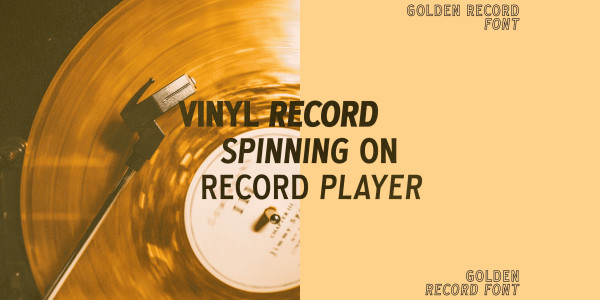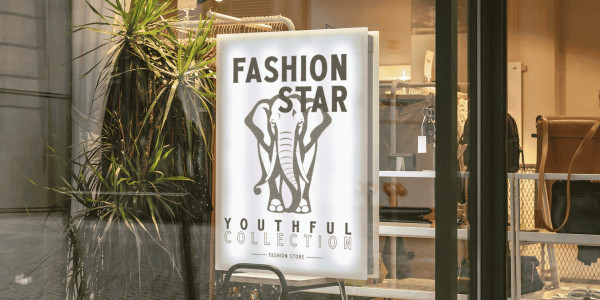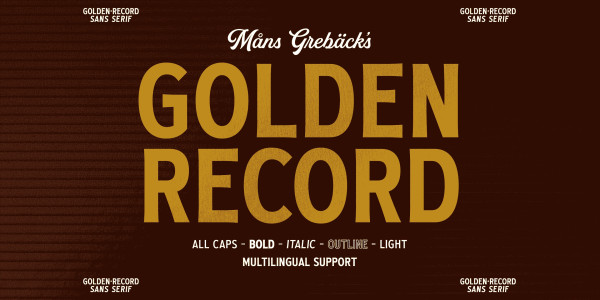
Golden Record Font
Golden Record Font is an elegant all caps sans serif typeface with a tall, classic, and high-quality feel. The font’s classiness evokes a sense of luxury and opulence, making it ideal for high-end branding and design applications.